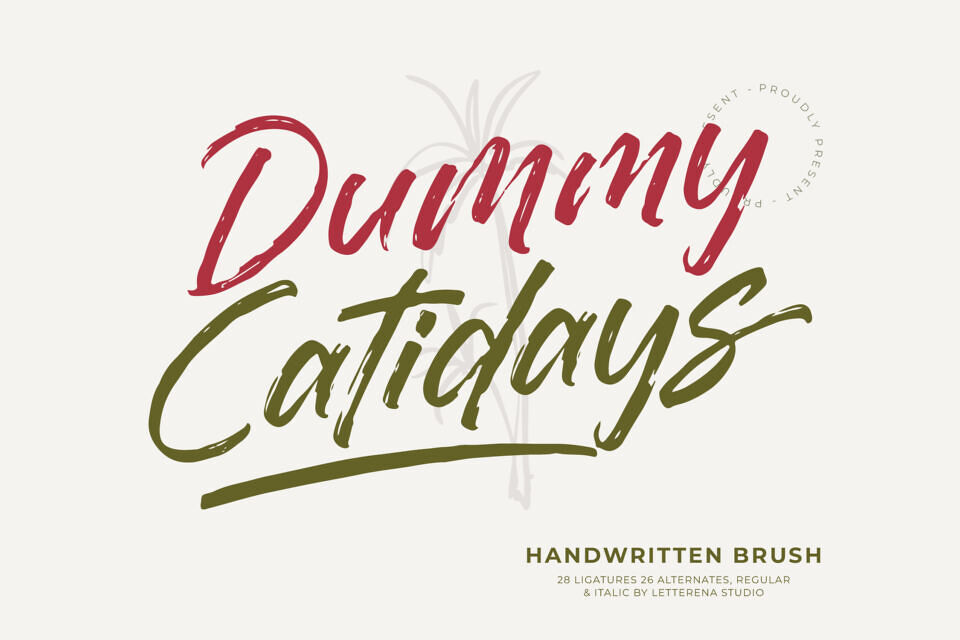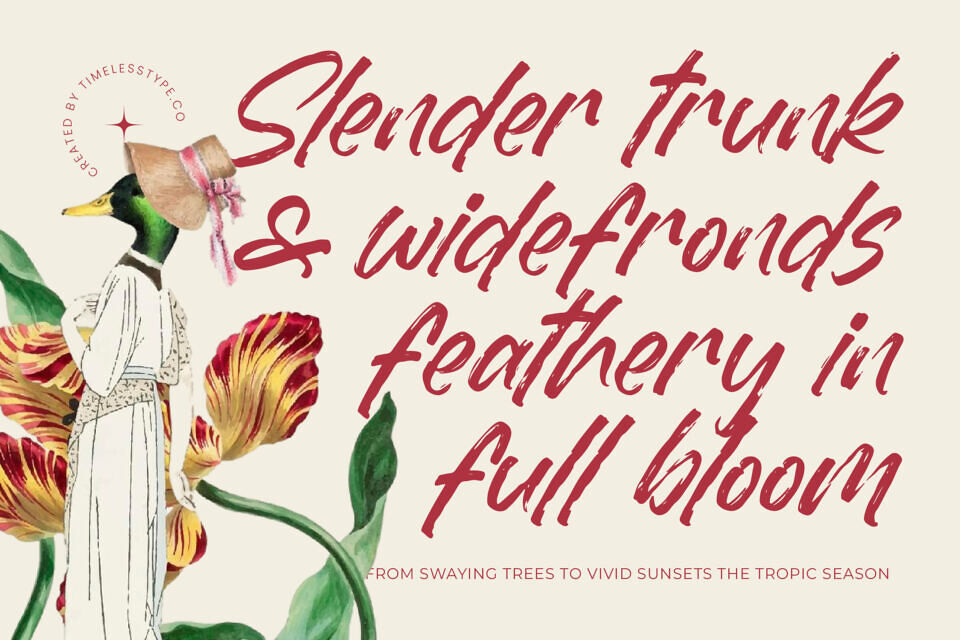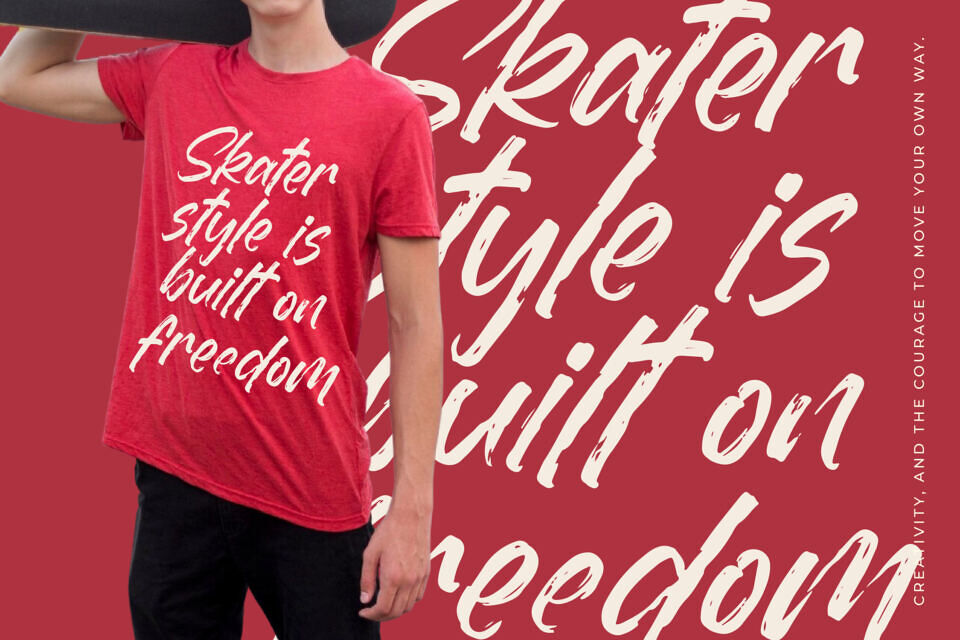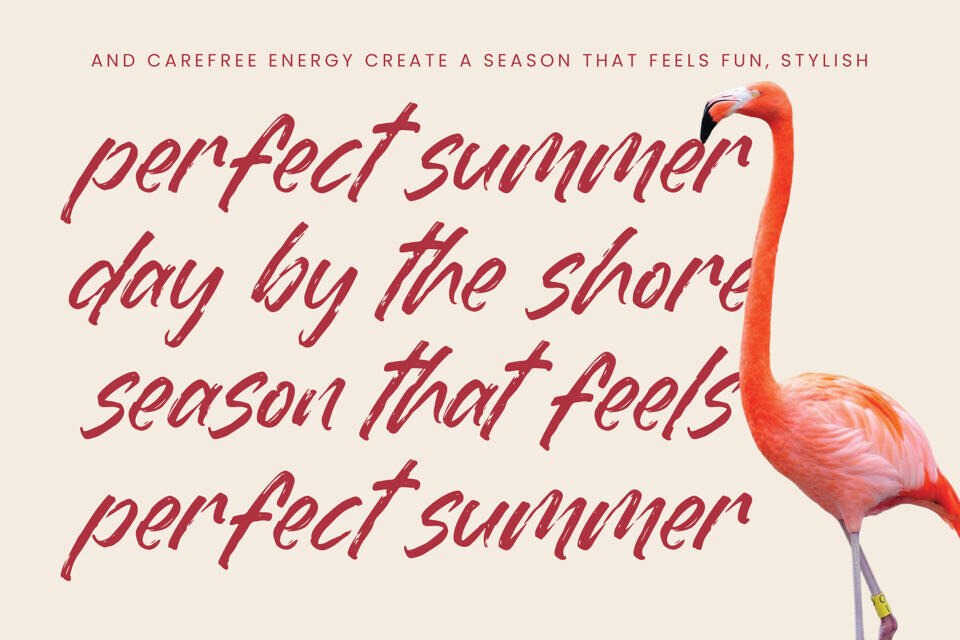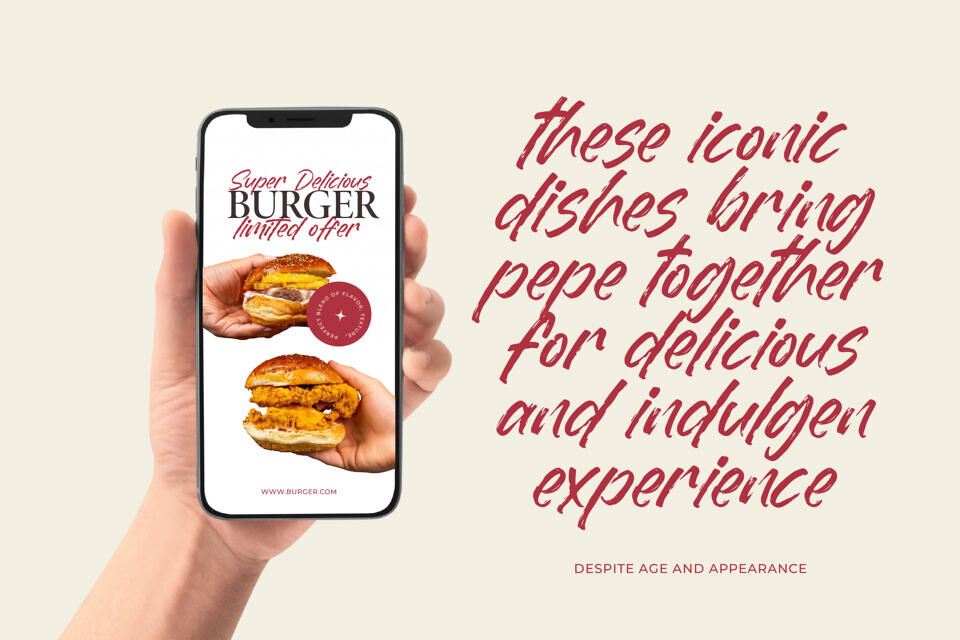
Dummy Catidays is a playful handwritten brush font. It features textured strokes and energetic movement, making it perfect for creative projects like posters and social media graphics. The font includes ligatures, alternates, and regular and italic styles, bringing a spontaneous and authentic feel to designs. It’s ideal for modern branding, packaging, and merchandise, adding personality to any project.